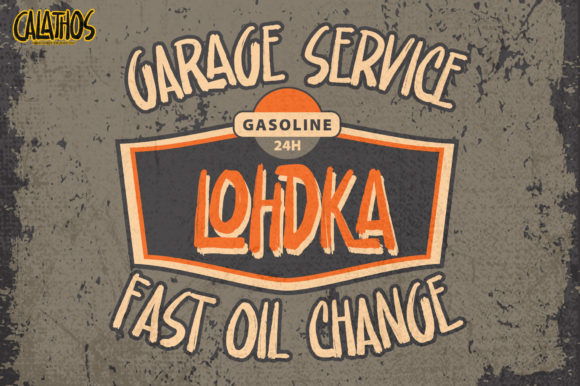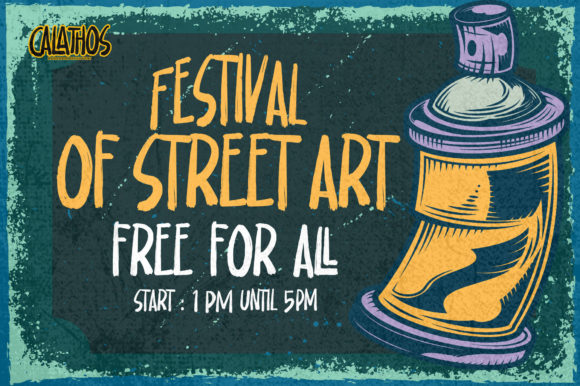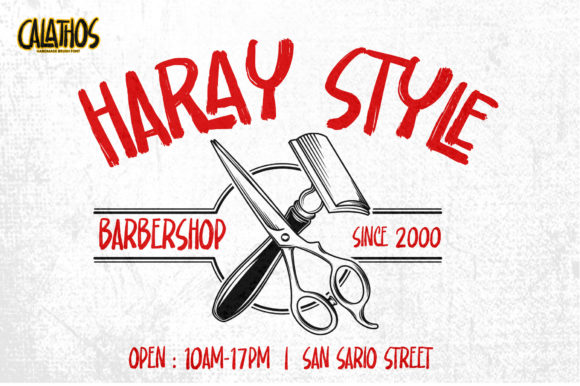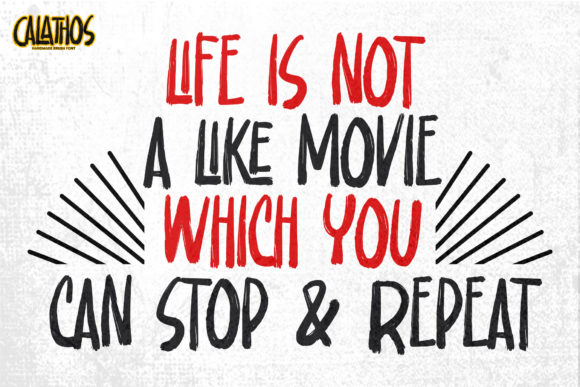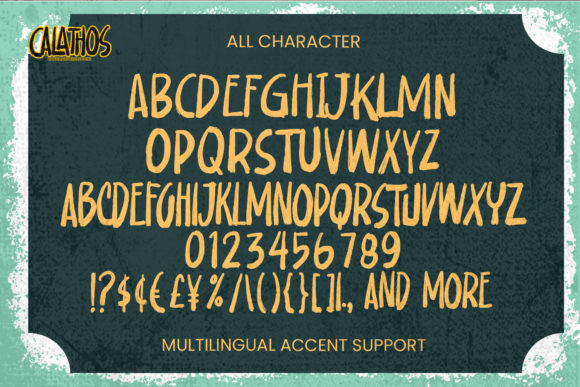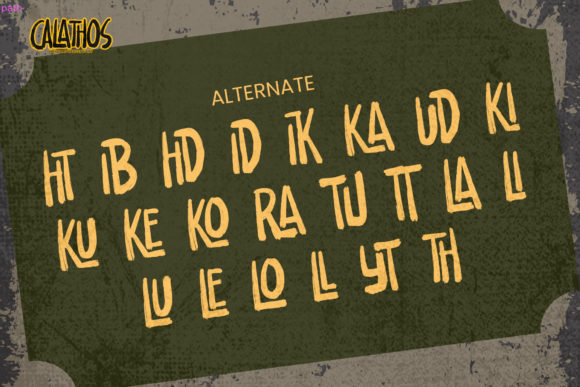
Introducing Calathos Font: Elevate Your Designs with a Unique Handwritten Touch
In the world of typography, fonts play a crucial role in making or breaking the visual appeal of a design. For designers and crafters looking for a distinctive and eye-catching font, Calathos is an excellent choice. This gorgeous display font boasts an unusually natural appearance and unique characters, making it perfect for projects that require a handwritten touch and bold characters.
What Makes Calathos Font Stand Out?
Calathos font is designed to add a personal touch to your designs. Its natural and effortless look makes it ideal for a wide range of projects, from posters and marketing materials to branding projects and social media posts. The font’s unique characters and bold appearance ensure that your designs stand out from the crowd and grab the attention of your audience.
Calathos font is versatile and can be used for various design projects, including:
- Posters: Create eye-catching posters for events, promotions, or announcements with Calathos font.
- Marketing Materials: Add a personal touch to your brochures, flyers, and business cards with this unique font.
- Branding Projects: Establish a strong brand identity with Calathos font, perfect for logos, packaging, and more.
- Social Media Posts: Make your social media posts stand out with bold and eye-catching text.
- Vintage T-Shirt Designs: Create unique and stylish t-shirt designs with Calathos font.
Why Choose Calathos Font?
With Calathos font, you can:
- Add a Handwritten Touch: Give your designs a personal and human touch with Calathos font’s natural appearance.
- Stand Out from the Crowd: With its unique characters and bold appearance, Calathos font ensures your designs don’t get lost in the crowd.
- Enhance Readability: The font’s clear and legible design makes it easy to read, even at larger sizes.
Tips for Using Calathos Font Effectively
To get the most out of Calathos font, consider the following tips:
- Use it as a Display Font: Calathos font is designed to make a statement, so use it as a display font to grab attention.
- Experiment with Colors: Try pairing Calathos font with bold and bright colors to create a striking contrast.
- Mix and Match: Combine Calathos font with other fonts to create a unique and visually appealing design.
Calathos font is a versatile and stunning display font that can elevate your designs with its unique handwritten touch and bold characters. With its natural appearance and clear readability, it’s perfect for a wide range of projects, from posters and marketing materials to branding projects and social media posts. By incorporating Calathos font into your designs, you can add a personal touch, stand out from the crowd, and create visually appealing designs that grab attention.